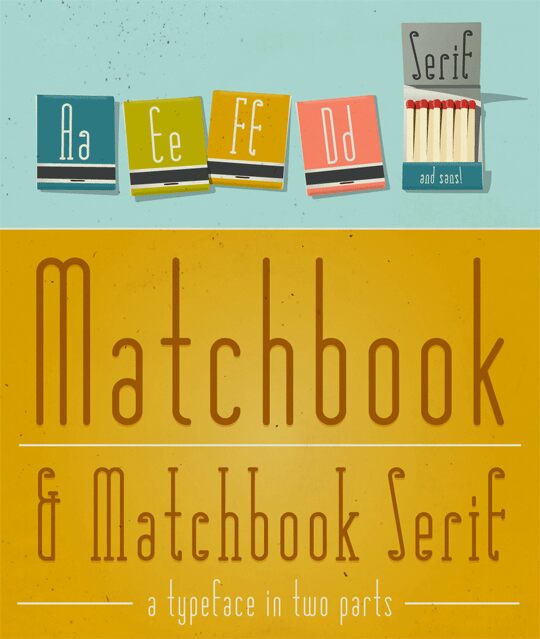
Matchbook is a free retro display font with extremely narrow, monoline letters and softly rounded turns. Its tall proportions recall hand-lettered shop signs and mid-century advertising.
It can give a cafe logo the look of a neatly drawn storefront sign. The slim lettering also suits menu covers, record packaging, and event posters built around understated vintage graphics. Its clearest home is in designs that reference independent shops, acoustic music, or quiet coffeehouse culture.